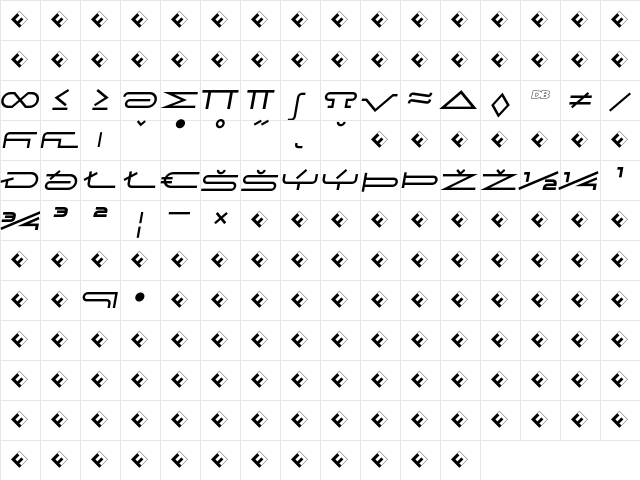
Droids SansItalicExpert
Design Context for Droids Typeface
Droids offers clean, dependable letterforms without strong stylistic allegiance, making it a practical choice for designers who need flexibility. Its italic angle brings a sense of urgency and motion to the letterforms.
Pro Tip: Try Droids for annotation and caption copy alongside an upright companion — the contrast in angle creates a dynamic but ordered typographic system.